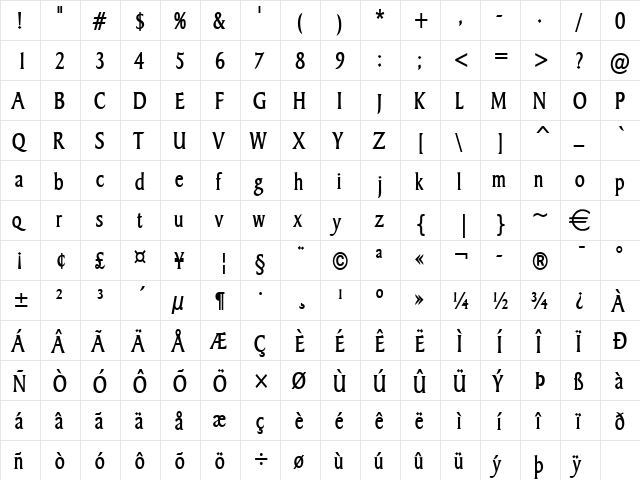
BarrettCondensed Bold
Design Context for BarrettCondensed Typeface
BarrettCondensed offers clean, dependable letterforms without strong stylistic allegiance, making it a practical choice for designers who need flexibility. Its bold stroke weight gives it real presence on the page. The condensed width makes it efficient for tight spaces without sacrificing legibility.